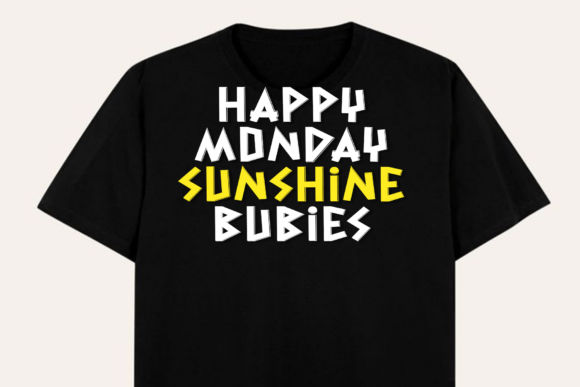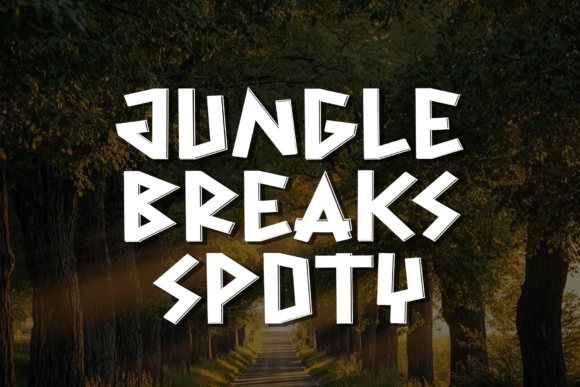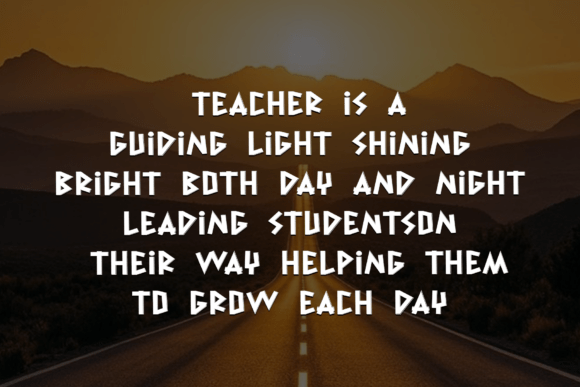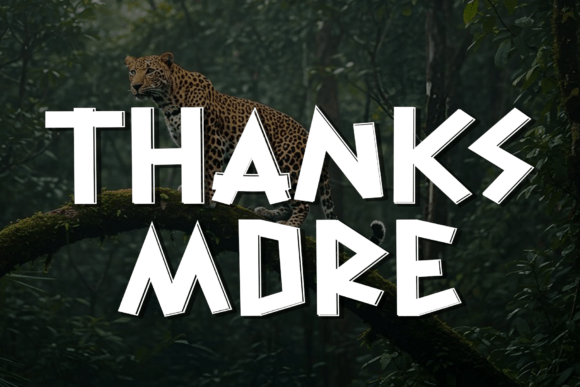
Unleash the Beast: Introducing the Danger Tiger Font
Are you looking for a font that exudes raw power, unbridled energy, and a touch of the wild? Look no further than the Danger Tiger font, a ferocious display typeface designed to make a lasting impact. This rugged and aggressive font is perfect for projects that require a bold, unapologetic voice, such as survival gear branding, extreme sports logos, video game titles, or posters for action movies.
The Raw Power of Danger Tiger
The Danger Tiger font features thick, angular, and rugged block letters that convey an unmistakable sense of urgency and raw power. The heavy, asymmetrical forms and deliberately sharp points (as seen on the ‘A’ and ‘R’) mimic rough carving or primitive markings, perfect for catching the eye immediately. This font is not for the faint of heart; it’s designed to be bold, daring, and attention-grabbing.
The Danger Tiger font boasts several design characteristics that make it stand out from the crowd:
- Thick, Angular Lines: The font features thick, angular lines that give it a rugged, rough-hewn feel.
- Asymmetrical Forms: The heavy, asymmetrical forms of the letters create a sense of tension and energy.
- Sharp Points: The deliberately sharp points on certain letters, such as the ‘A’ and ‘R’, add to the font’s ferocious and untamed feel.
- Rugged Texture: The font’s rugged texture gives it a worn, battle-hardened look that’s perfect for projects that require a sense of adventure and grit.
Perfect for High-Impact Projects
The Danger Tiger font is the ultimate choice for projects that need to communicate adventure, thrill, and untamed nature. Here are some examples of projects that would benefit from this font:
- Survival Gear Branding: The Danger Tiger font is perfect for branding survival gear, such as knives, flashlights, and camping equipment.
- Extreme Sports Logos: The font’s bold, aggressive design makes it ideal for logos and branding materials for extreme sports, such as rock climbing, skydiving, or motocross.
- Video Game Titles: The Danger Tiger font would look great on video game titles, especially those that feature action, adventure, or survival elements.
- Posters for Action Movies: The font’s bold, attention-grabbing design makes it perfect for posters and marketing materials for action movies.
Why Choose Danger Tiger?
So why choose the Danger Tiger font for your next project? Here are just a few reasons:
- Maximum Impact: The Danger Tiger font is designed to make a lasting impact, grabbing the viewer’s attention and refusing to let go.
- Unbridled Energy: The font’s bold, aggressive design conveys a sense of unbridled energy and raw power.
- Versatility: The Danger Tiger font can be used for a wide range of projects, from branding and advertising to video games and movie posters.
- Unique Style: The font’s unique style and rugged texture ensure that your project will stand out from the crowd.
In conclusion, the Danger Tiger font is a ferocious display typeface that’s perfect for projects that require a bold, unapologetic voice. With its thick, angular lines, asymmetrical forms, and deliberately sharp points, this font is sure to grab attention and convey a sense of raw power and unbridled energy. Whether you’re working on a survival gear branding project, an extreme sports logo, or a video game title, the Danger Tiger font is the ultimate choice for designers and crafters who want to make a lasting impact.